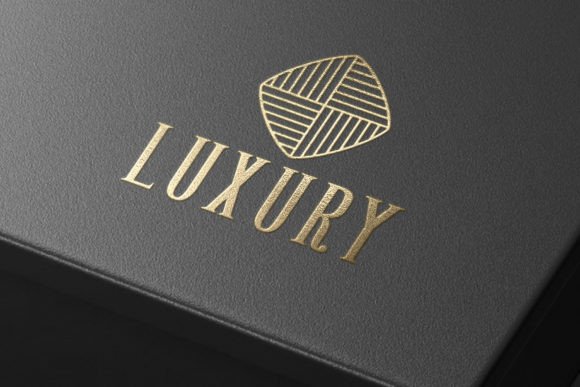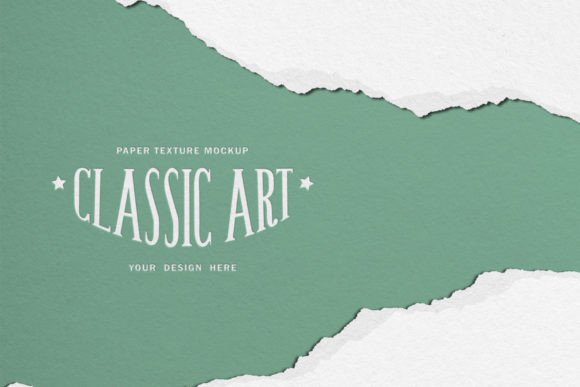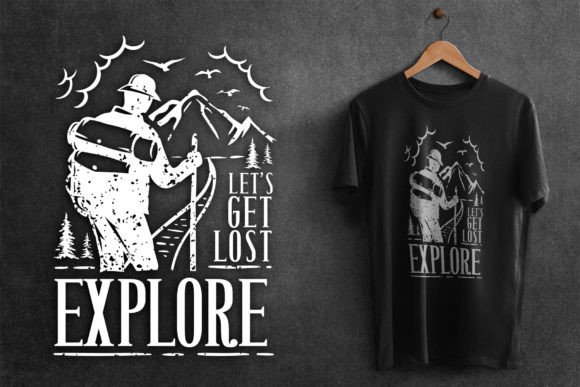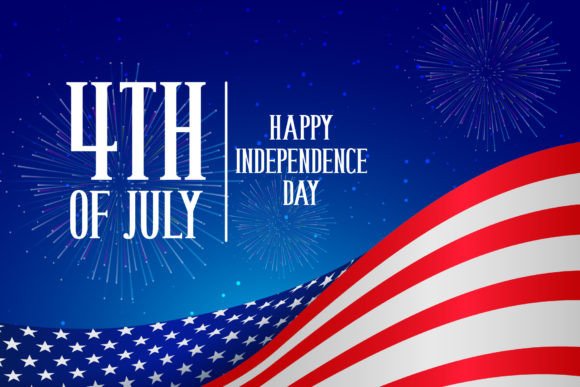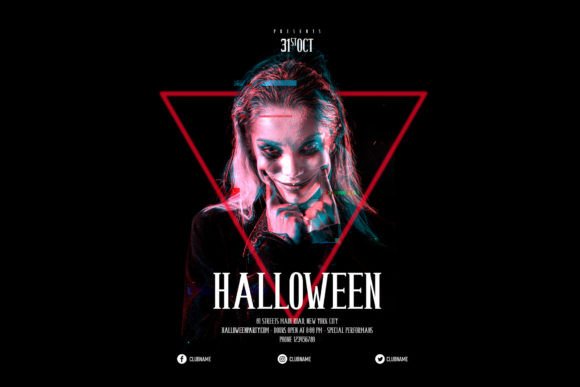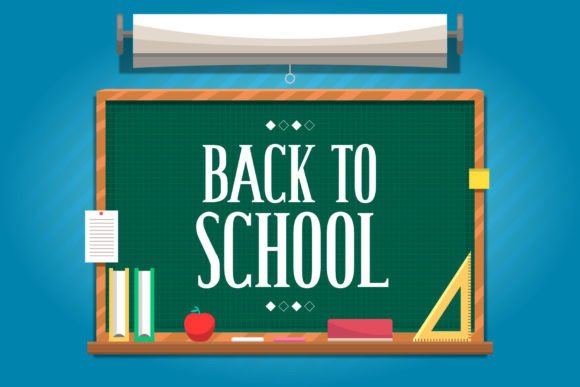
The Kingdom Font
THE KINGDOM FONT SPECIMEN
The Kingdom is an elegant, distinct and stylish slab serif font. This typeface is perfect for elegant and luxurious logos, book or movie title designs, fashion brands, magazines, clothes, lettering, quotes, etc. Add this font to your favorite creative ideas and notice how it makes them come alive!